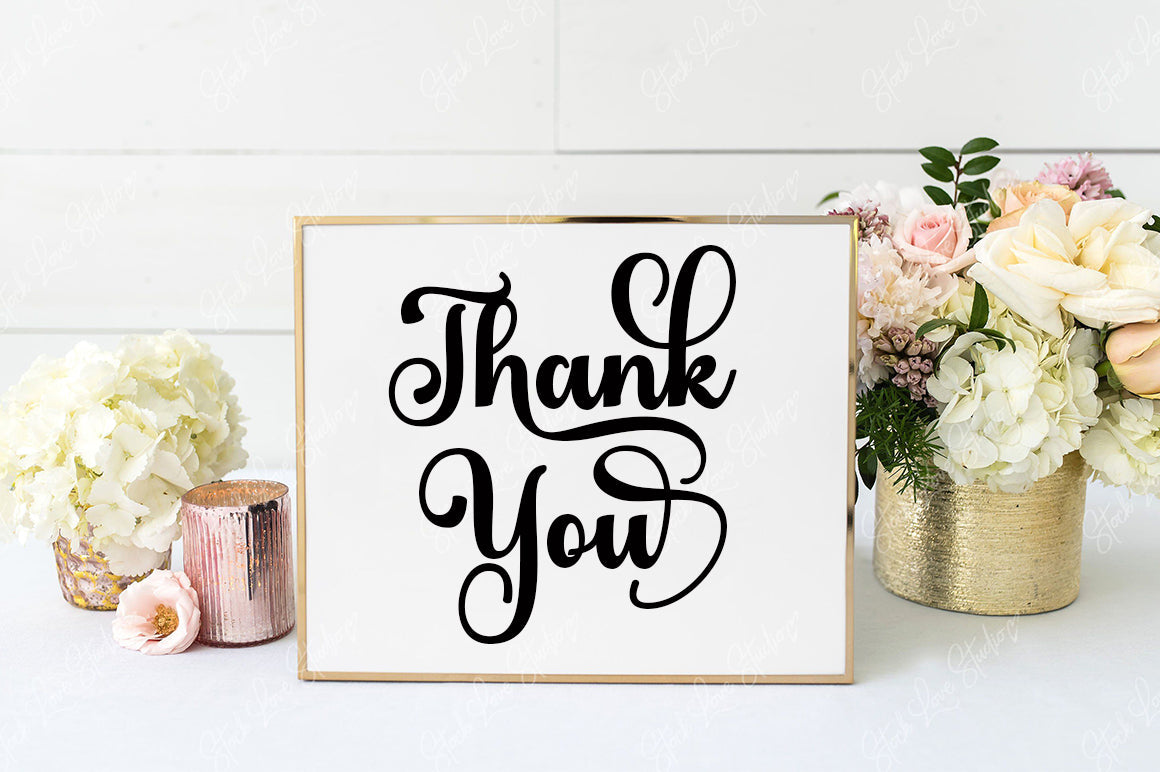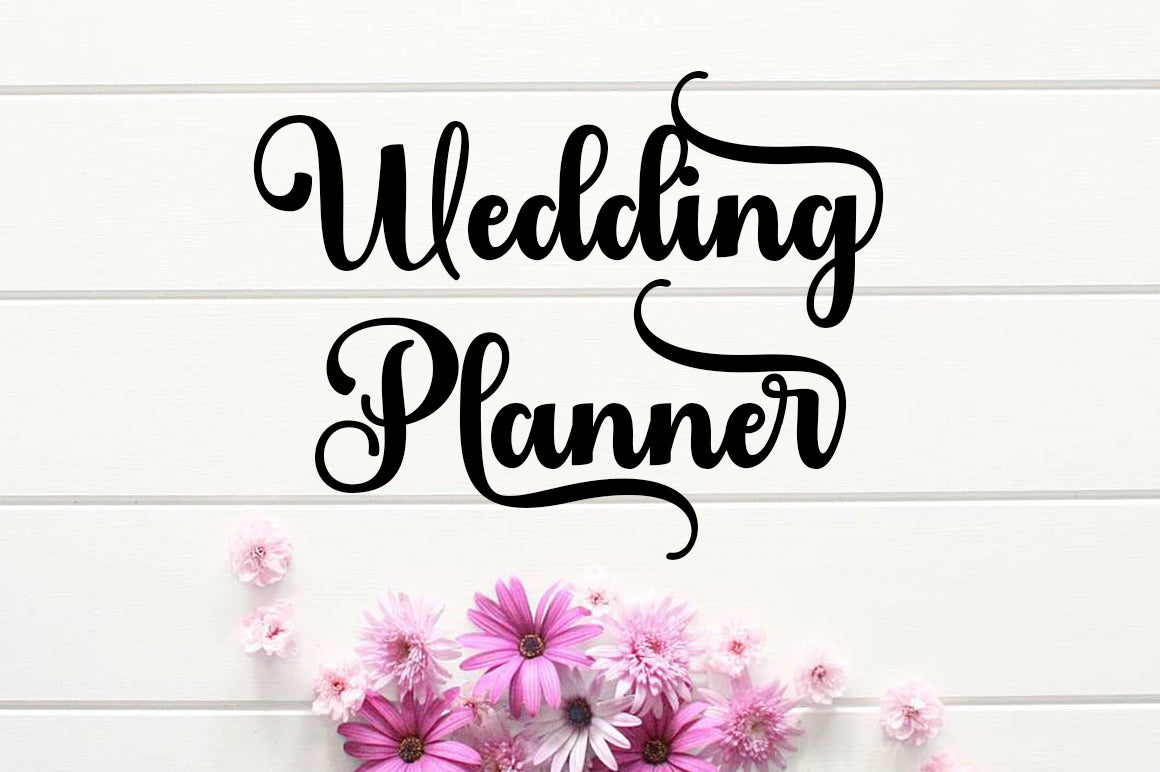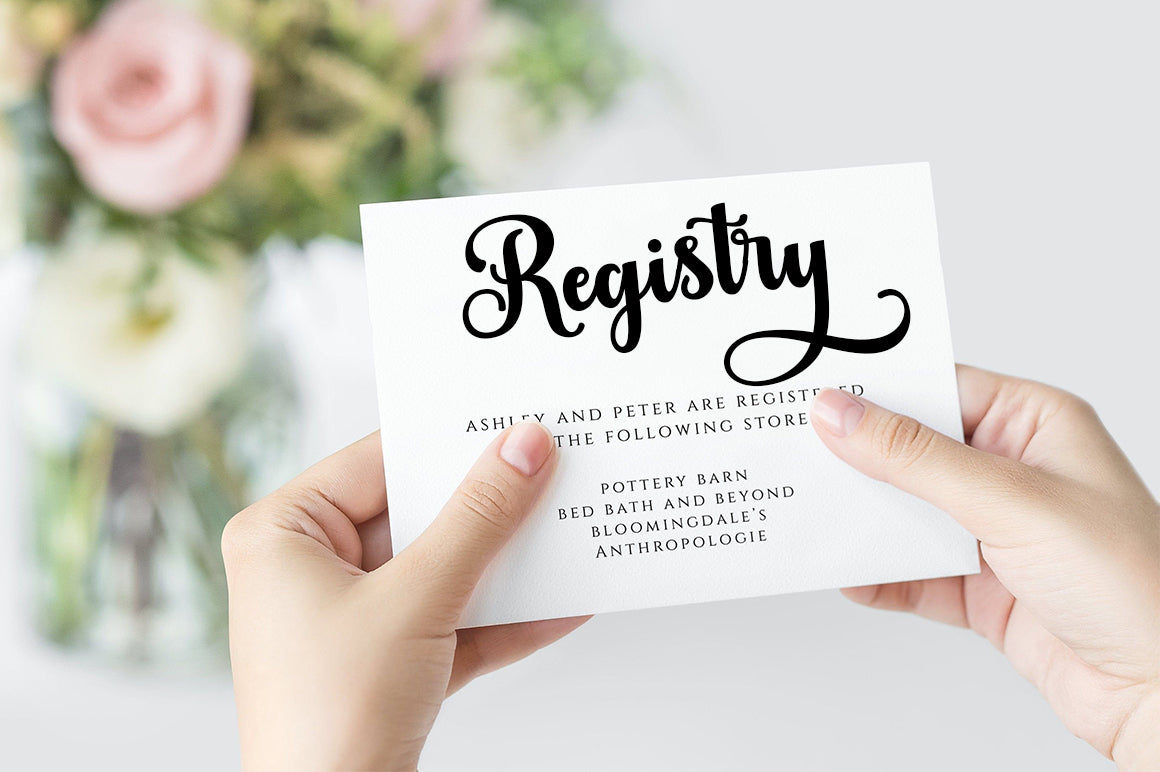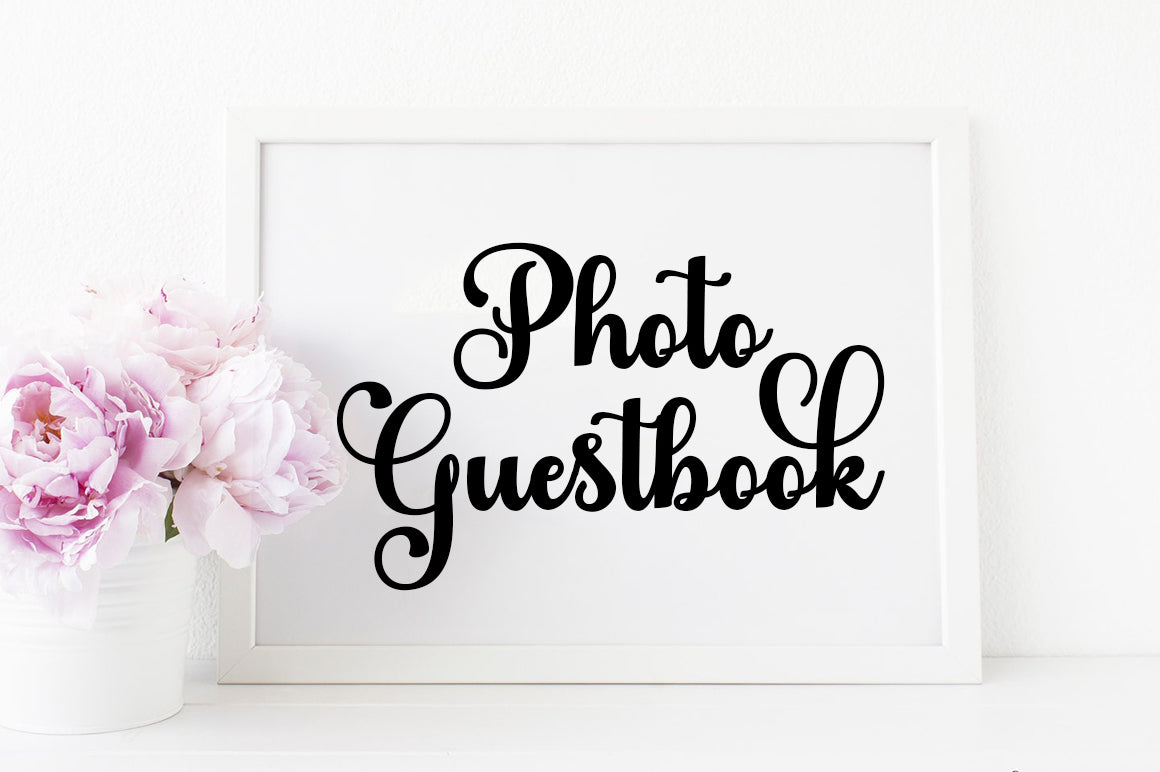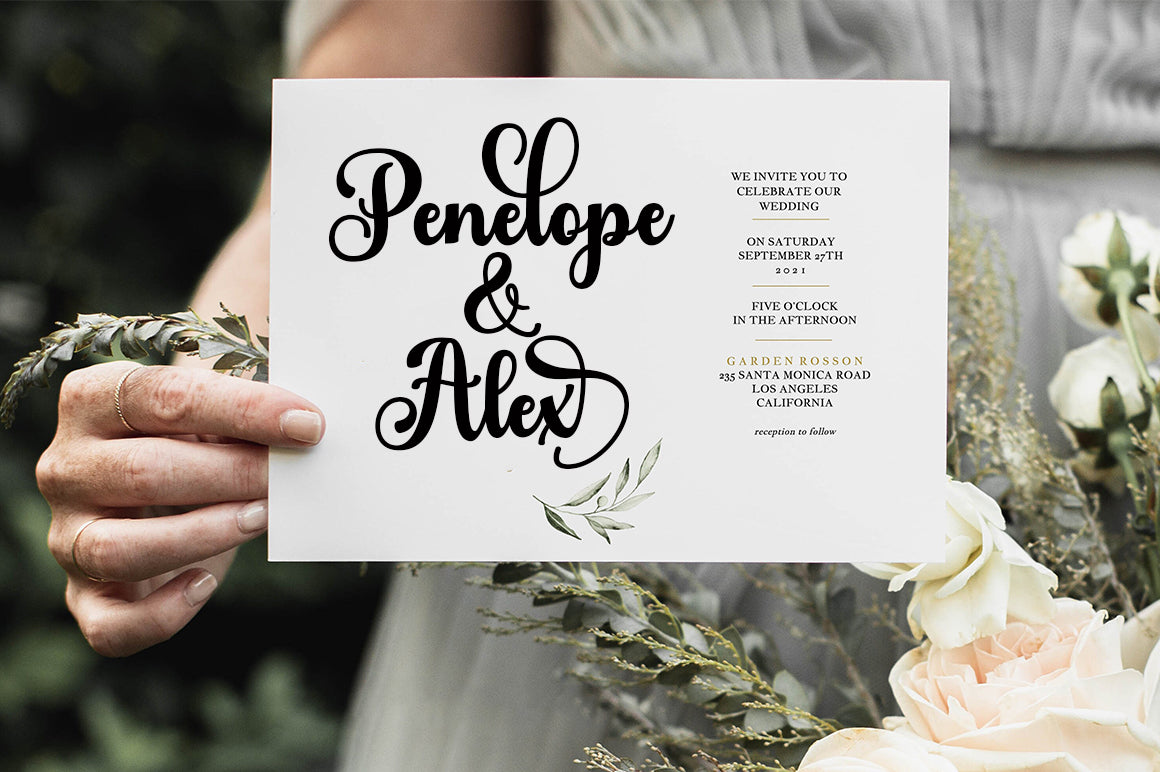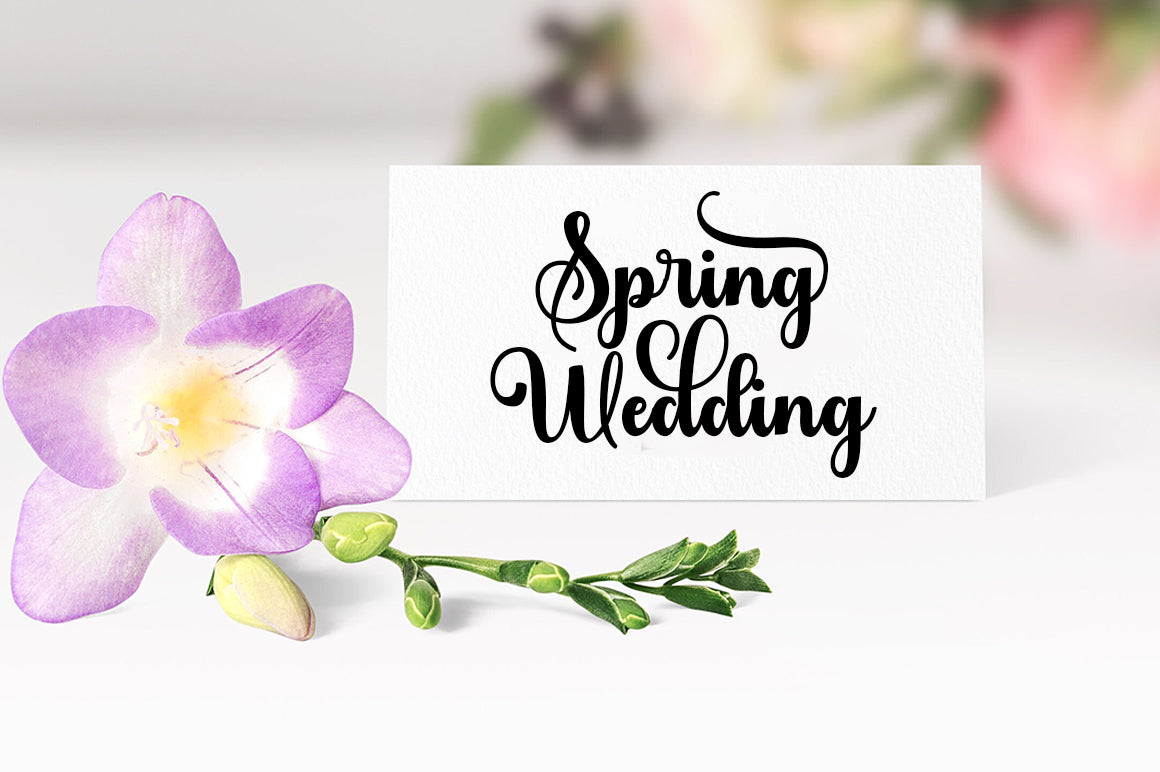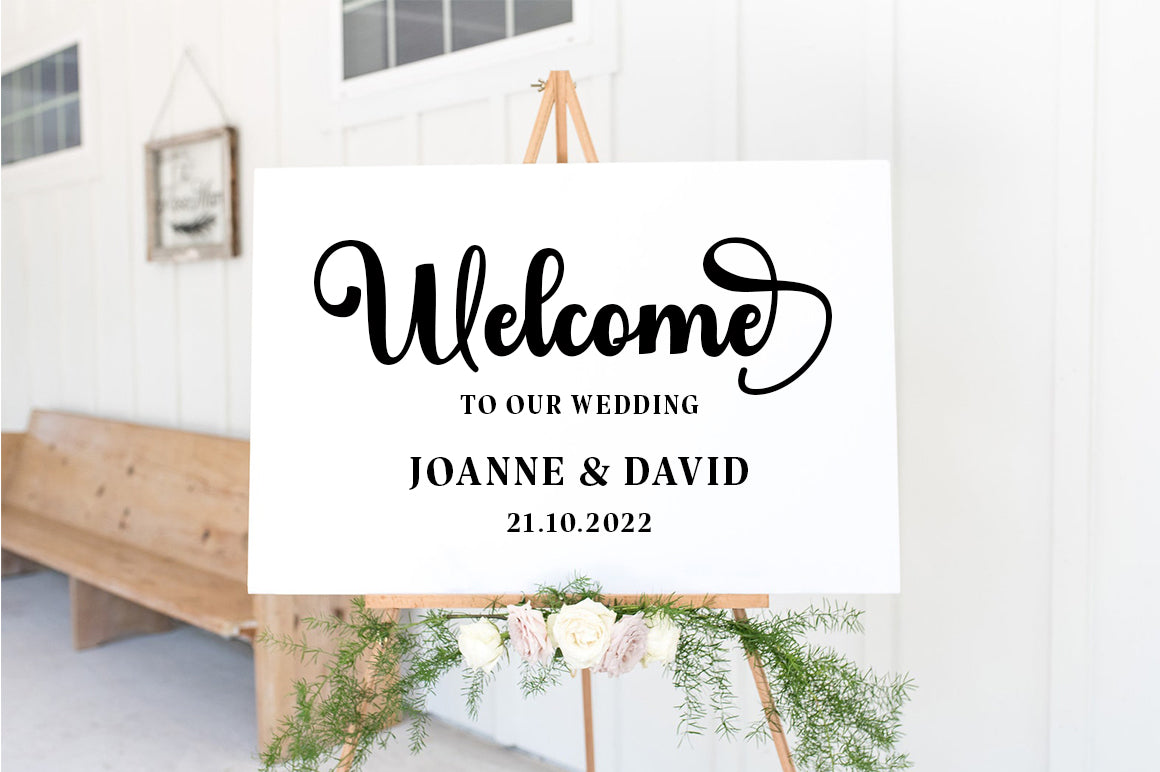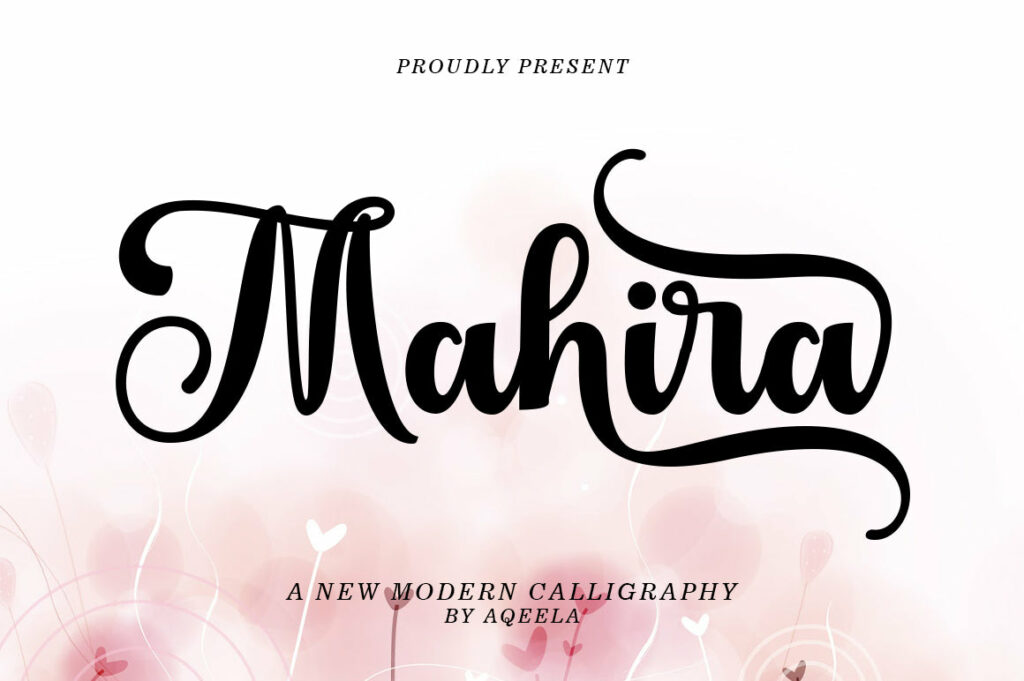
Mahira
About Mahira
Mahira is a unique rounded Calligraphy font. Fall in love with its very distinct and timeless style and can use it to create wall designs, logos, wedding invitations, stationery, product labels, photography, and more. Mahira comes with a full set of upper and lower case letters, lowercase strokes, multilingual symbols, numbers, and punctuation.